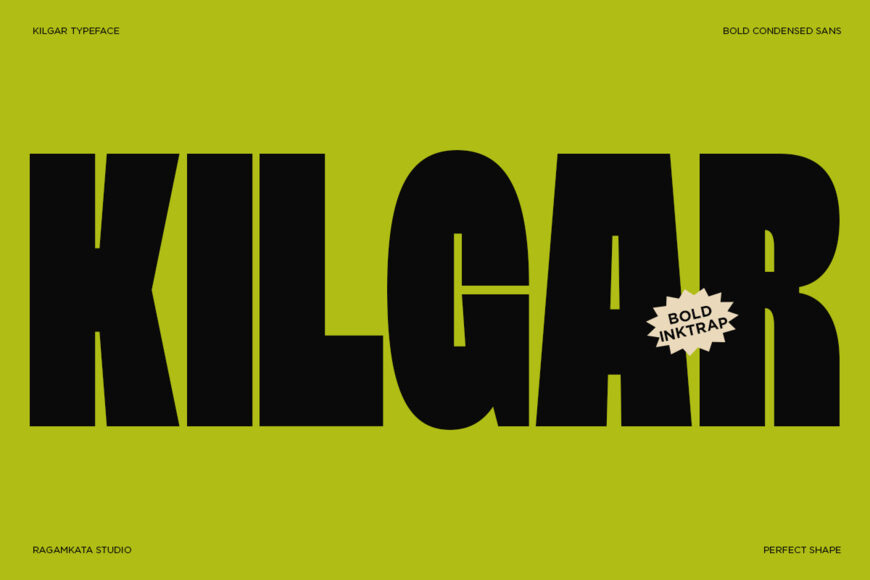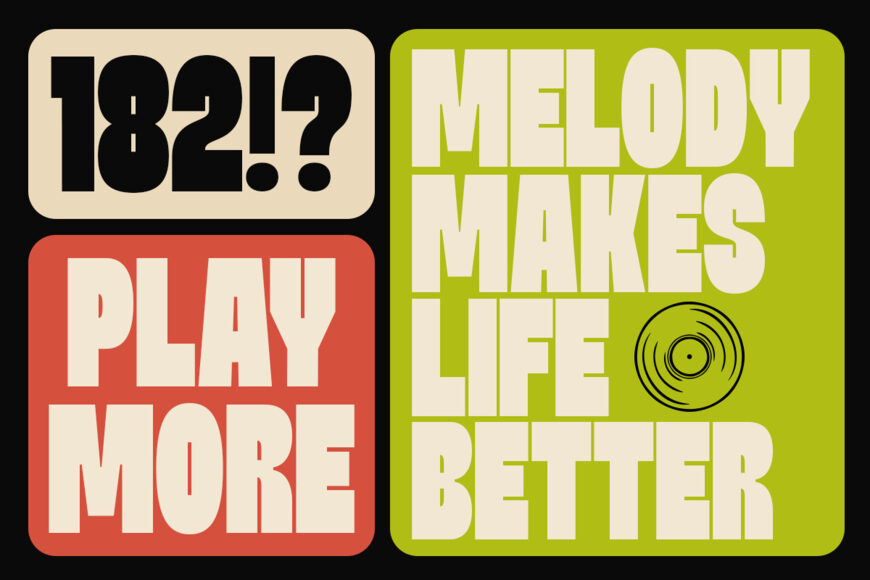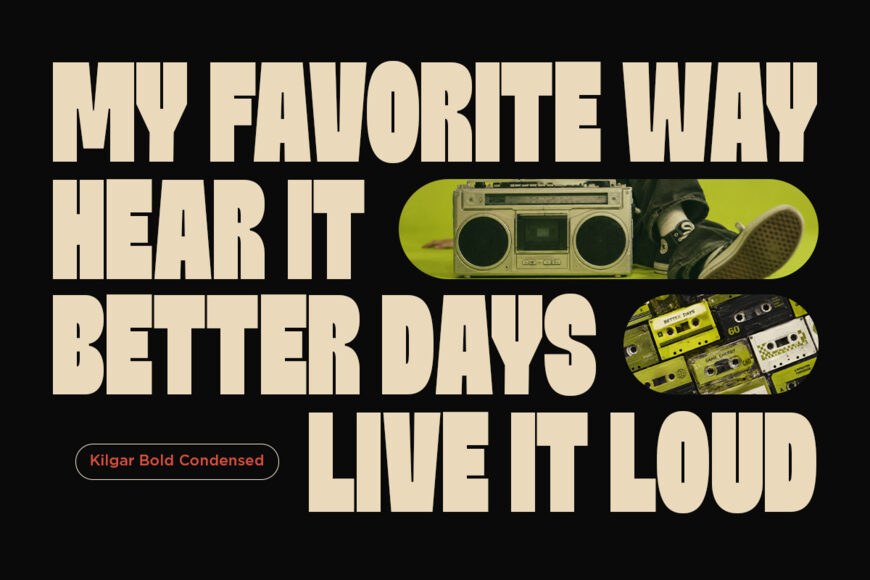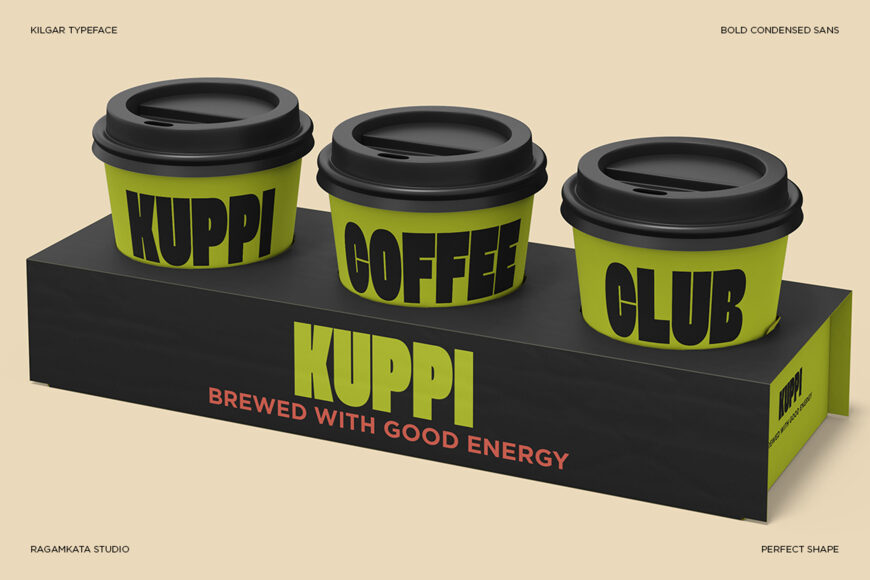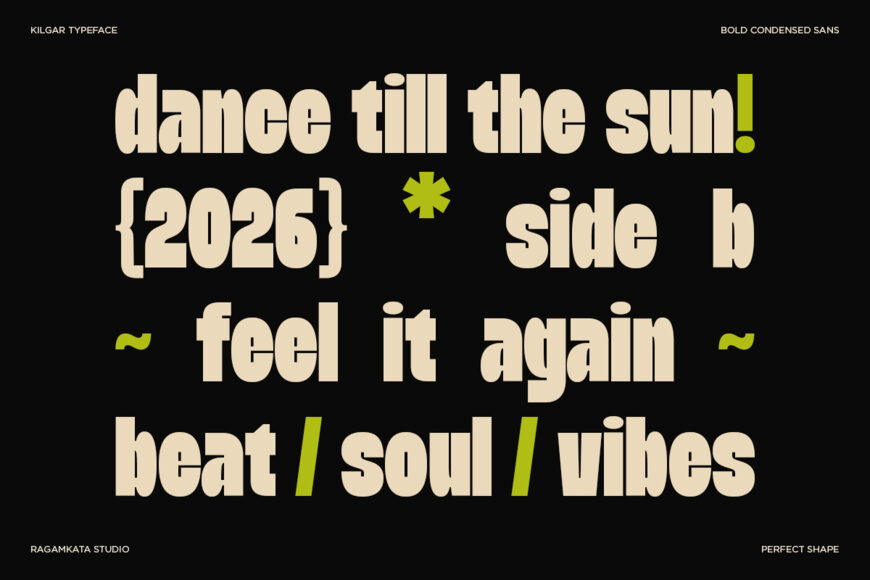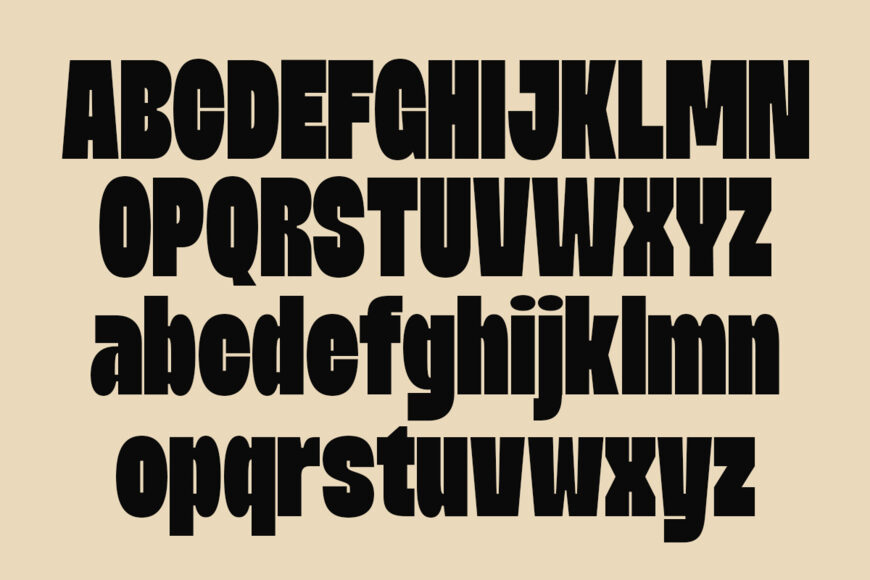
Kilgar Font
Kilgar is a bold condensed display font designed to give your typography a powerful, modern, and highly impactful presence. With its heavy letterforms, compact proportions, and distinctive geometric character, Kilgar is made for designs that need strong headlines and an unmistakable visual identity.
Perfect for posters, branding, packaging, editorial layouts, logos, advertising, social media graphics, album artwork, food and beverage designs, and promotional campaigns. Its condensed structure allows you to create large, attention-grabbing typography while maintaining an efficient and balanced composition.